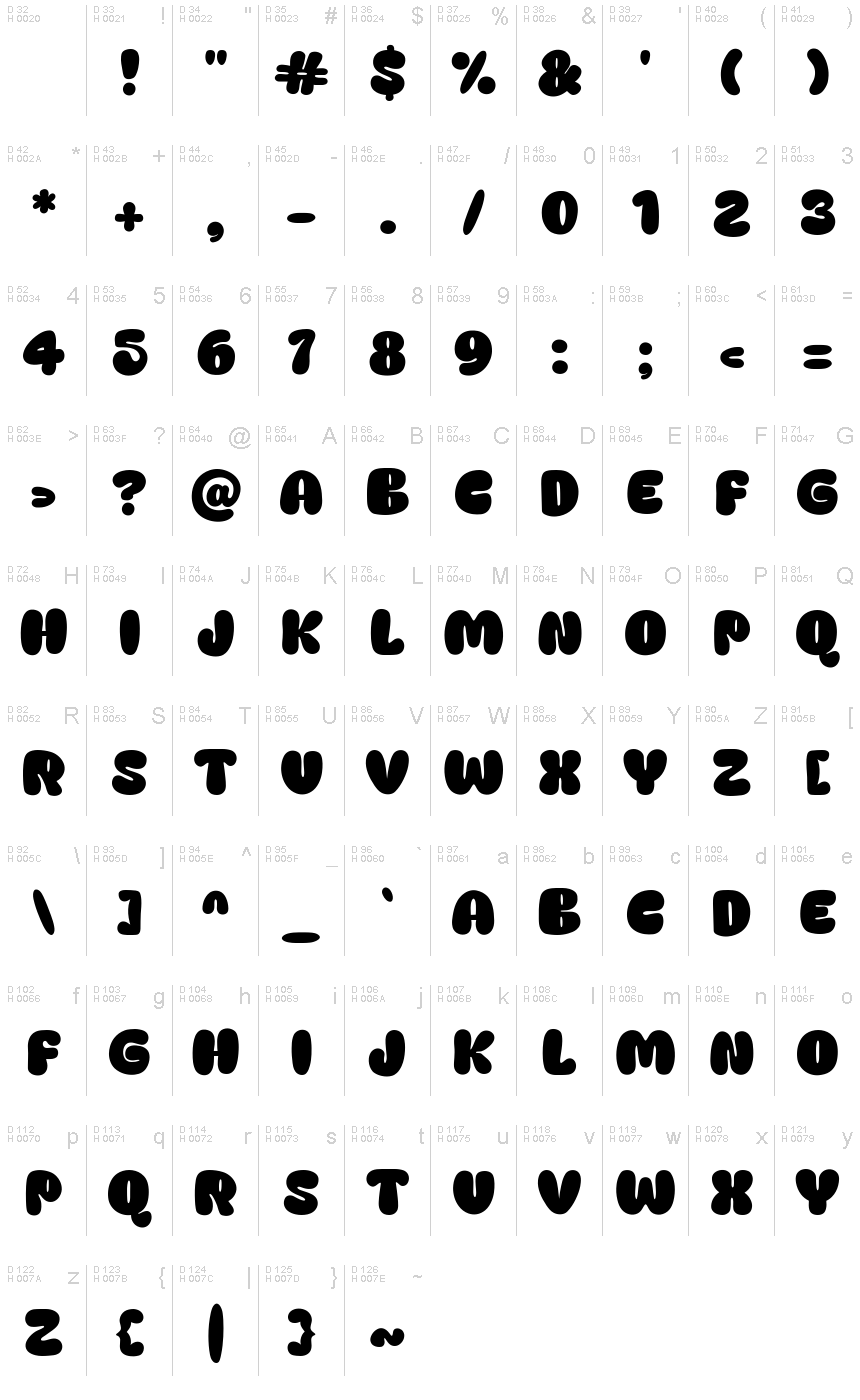
Nowcloud
Nowcloud, designed by Khurasan, captures a whimsical charm with its bold and cartoonish style. The font’s lively curves and playful characters evoke a sense of fun, making it an excellent choice for projects that aim to engage and entertain. Its distinctive appearance stands out prominently, ensuring that messages are not just seen but felt.
This eye-catching display font is perfect for children’s books, playful branding, or any design that seeks to convey lightheartedness and joy. Whether used in posters or digital graphics, Nowcloud brings a unique personality that invites creativity and connection. Its striking visual appeal transforms ordinary text into an inviting experience, making it a versatile option for various creative endeavors.